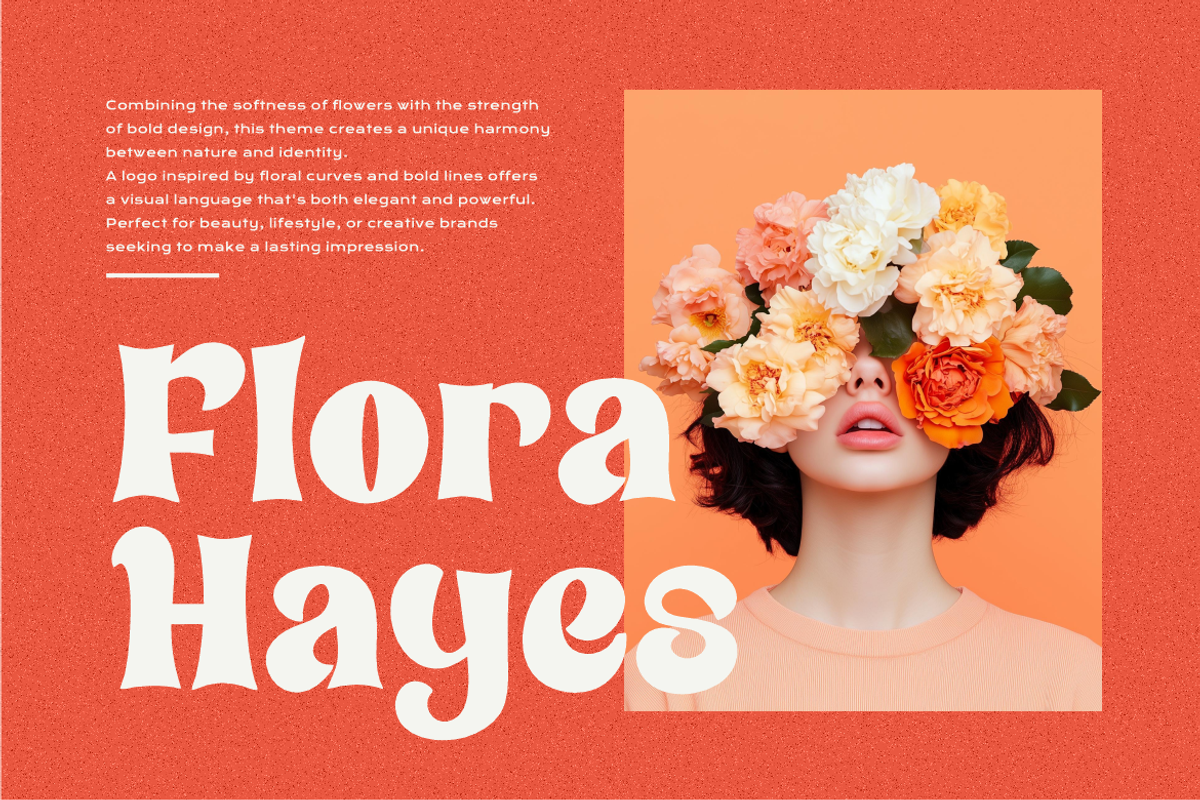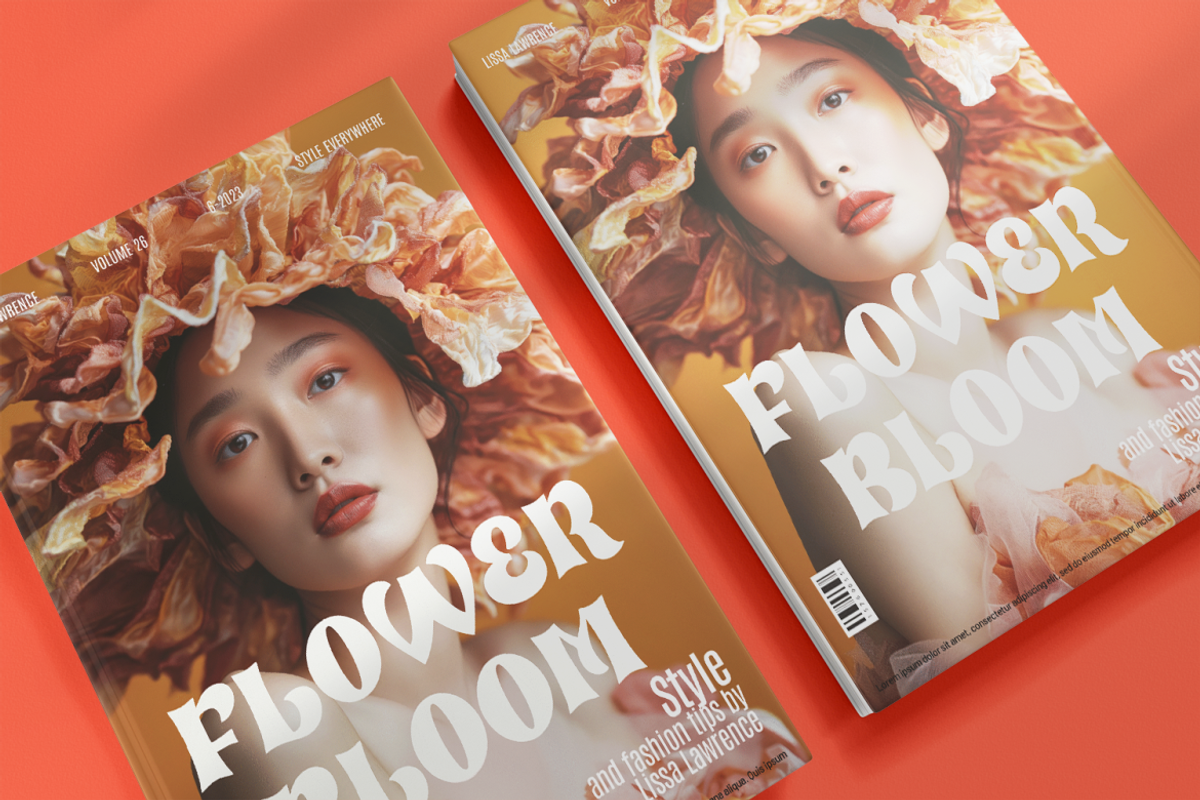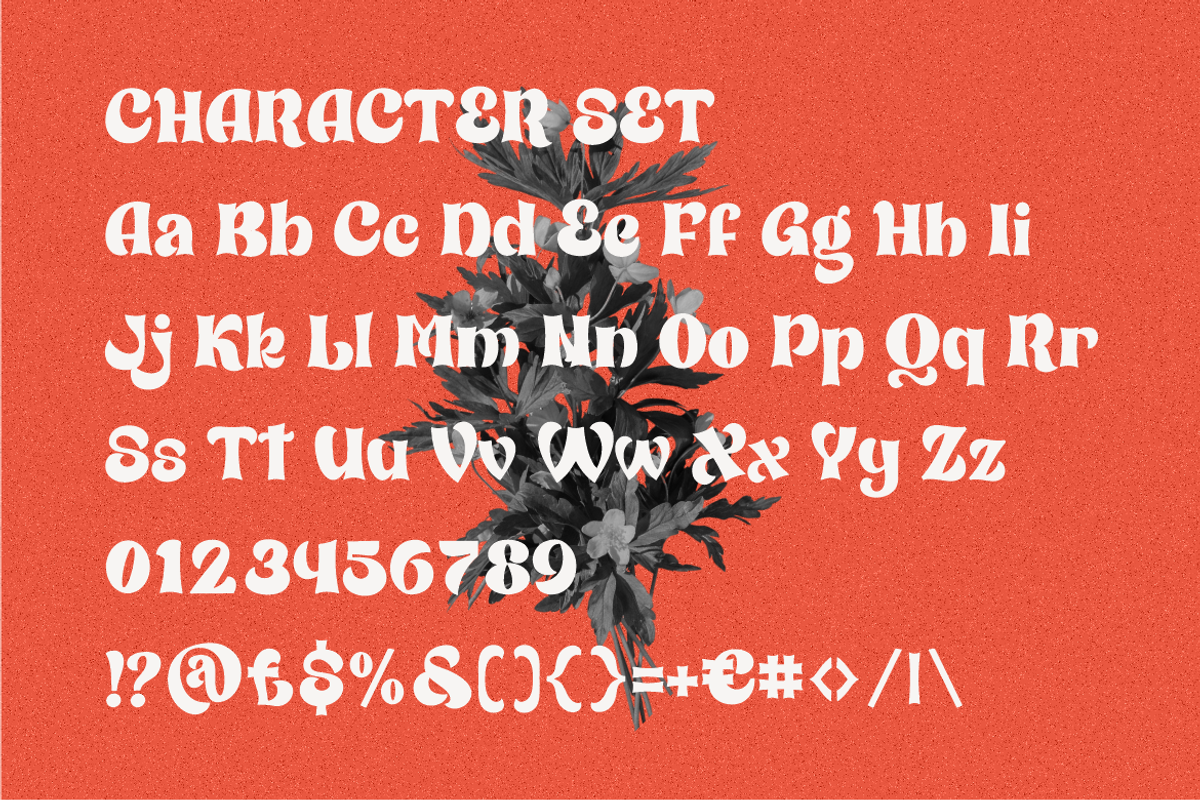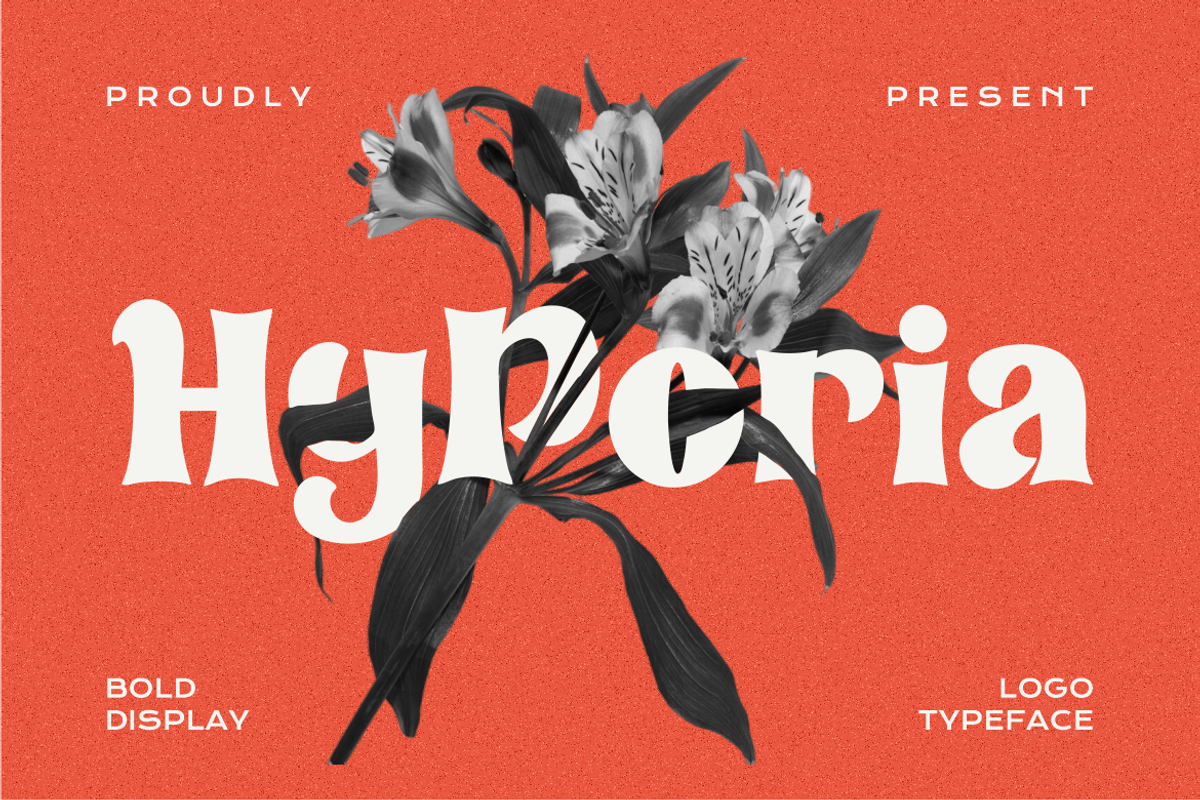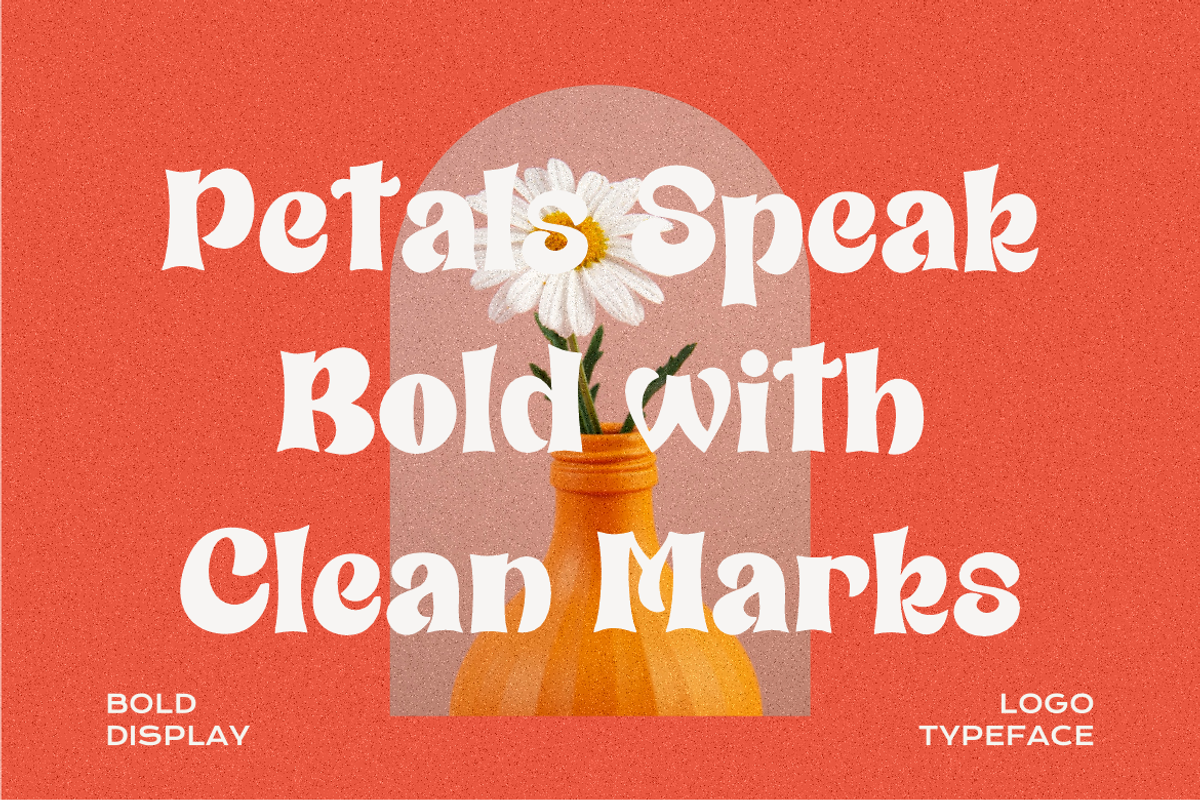
Hyporia Bold Logo Font
Hyporia Bold Logo Font is a striking typeface that blends classic boldness with elegant vintage charm. Each letterform carries sculpted curves and subtle serif details that recall retro poster art and traditional print design. The font balances strong proportions with playful angles, making it versatile for both contemporary and nostalgic aesthetics. With its bold weight and high readability, Hyporia creates an instant visual impact that ensures your brand or project stands out with style.
Perfect for logos, packaging, posters, and editorial layouts, Hyporia thrives wherever identity and personality matter. Its retro-inspired shapes pair beautifully with fashion, beauty, lifestyle, and creative branding. The layout samples highlight how this typeface transforms magazine covers, invitations, and product packaging into memorable visual statements. Whether used for film titles, headline designs, or sticker art, Hyporia’s bold character infuses every design with confidence, charm, and a timeless retro appeal.